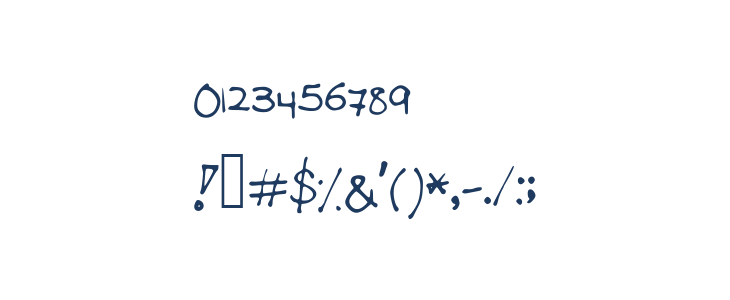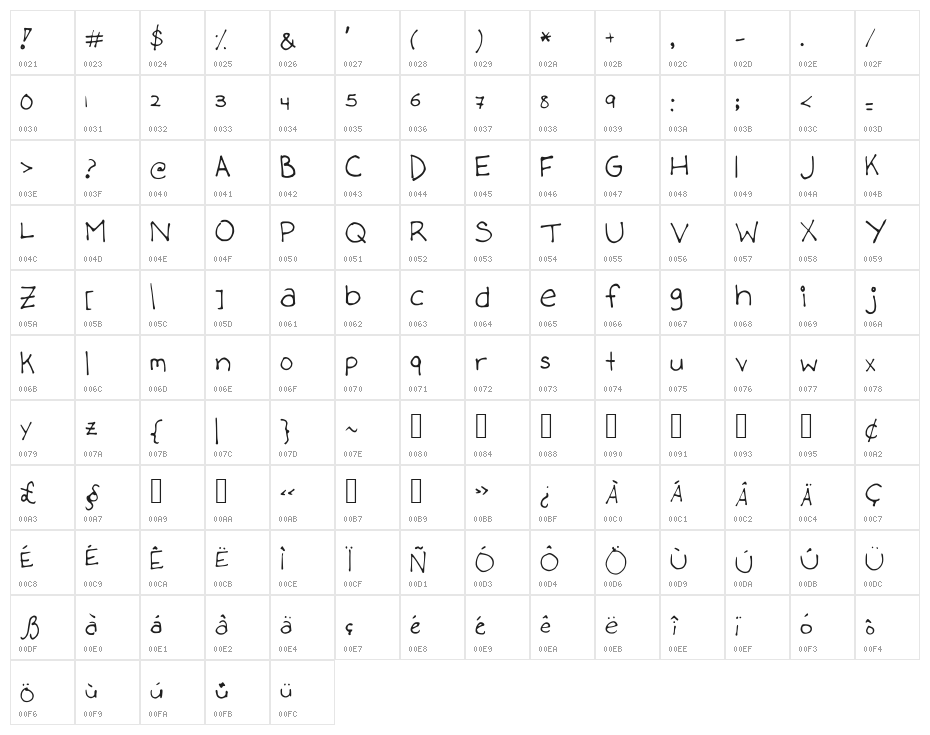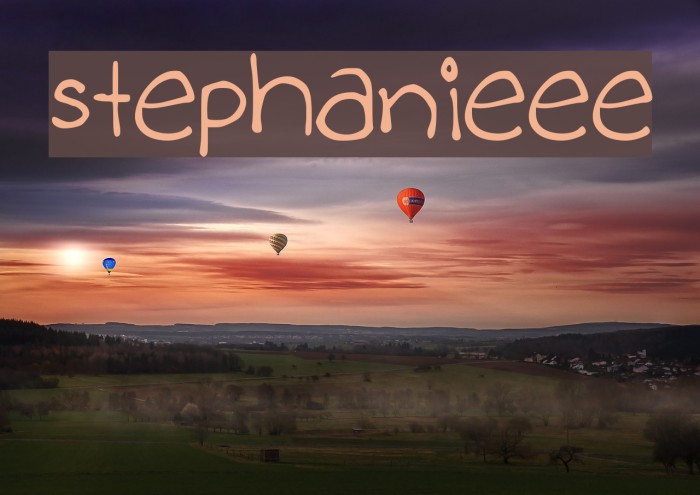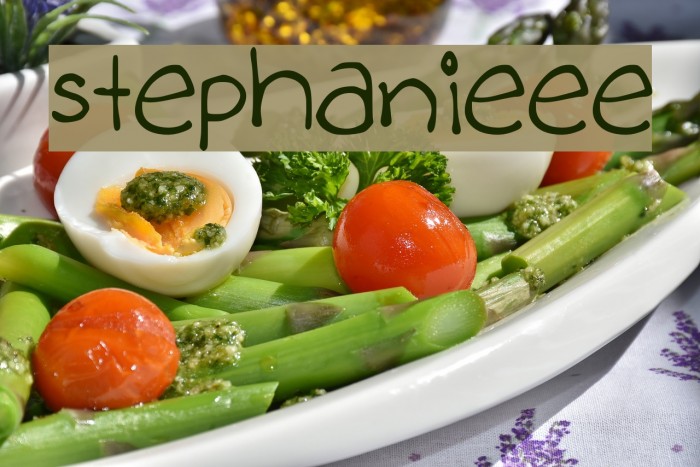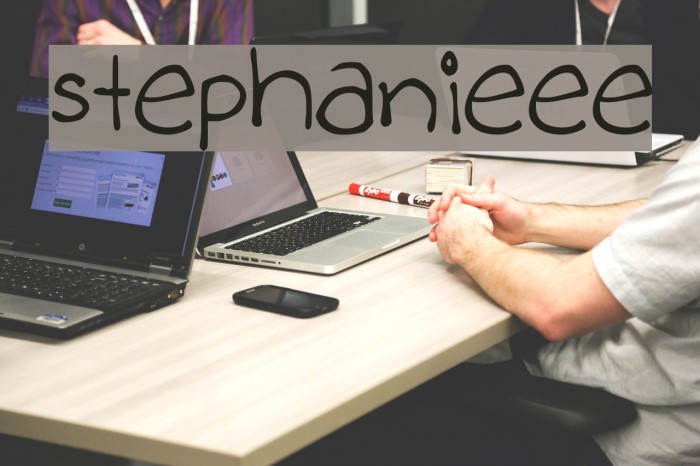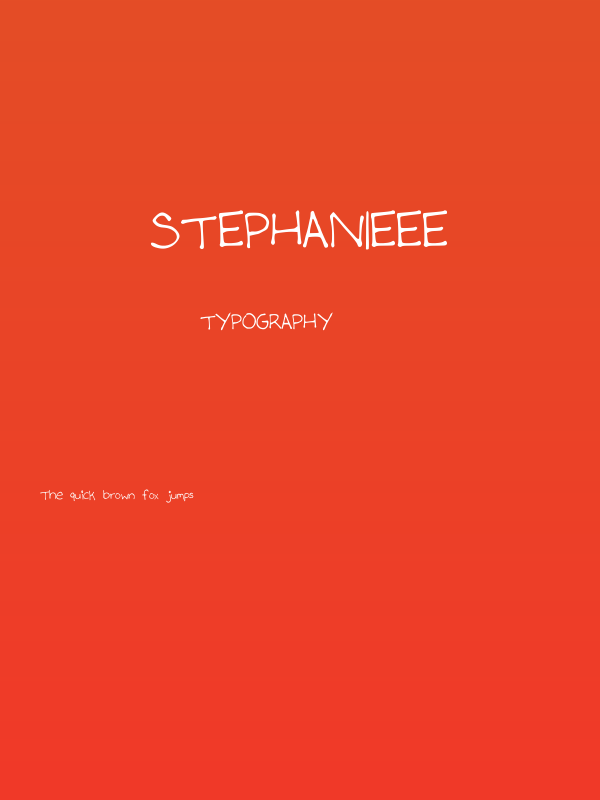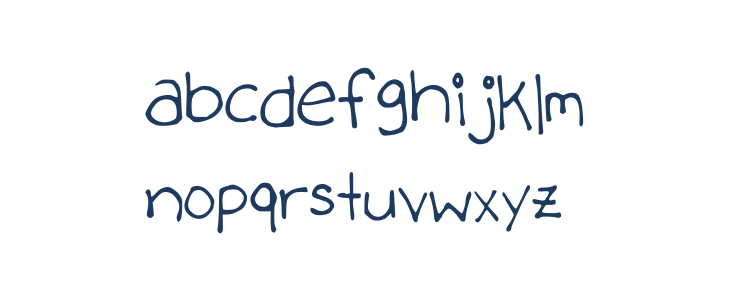
stephanieee Font
stephanieee Description
This font features a playful and informal handwritten style, characterized by its irregular strokes and whimsical appearance. The letters have a casual, organic flow, with varying stroke thickness that adds to its charm. The uppercase and lowercase letters maintain a consistent style, while the numerals and special characters complement the overall design. This font exudes a friendly and approachable vibe, making it suitable for creative and informal projects.